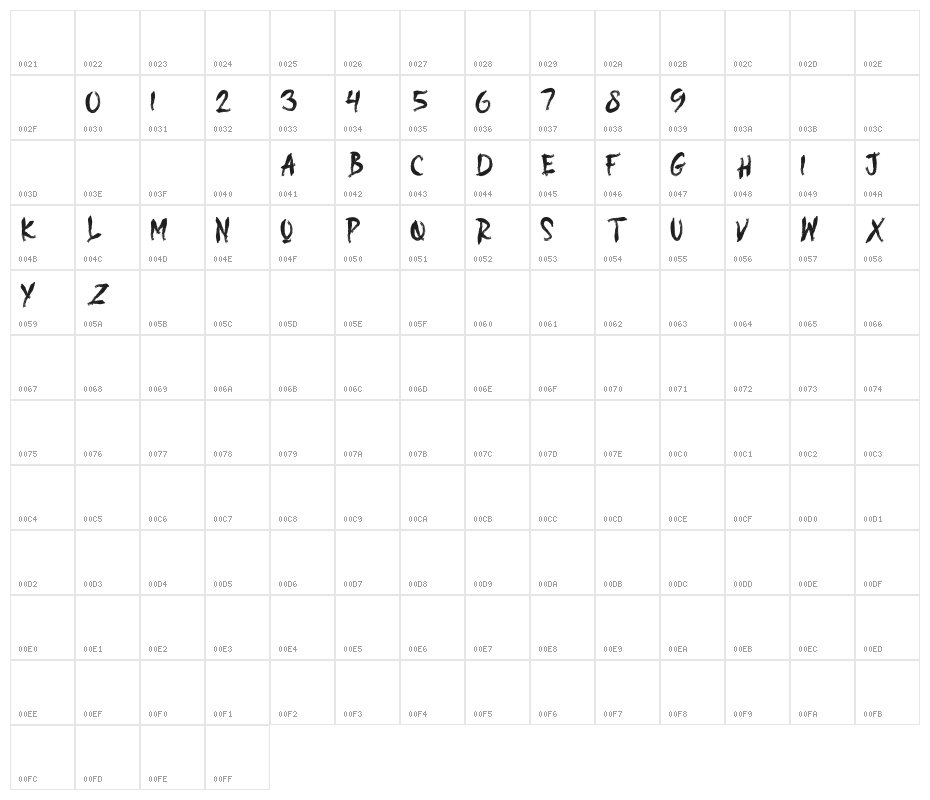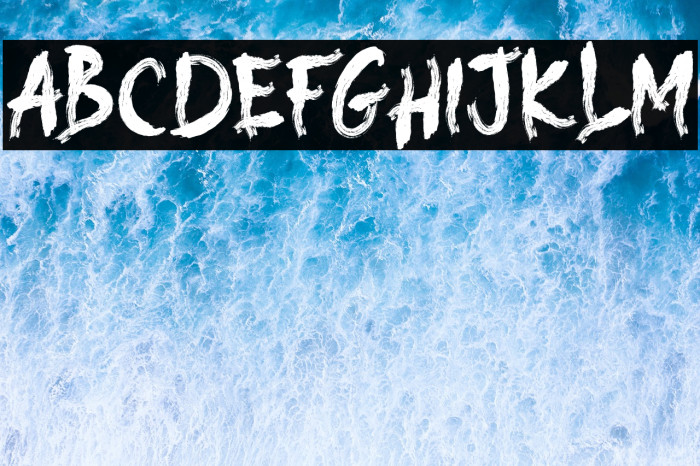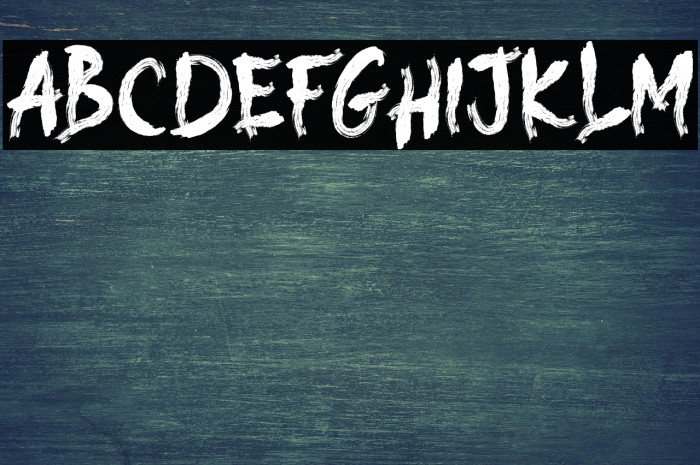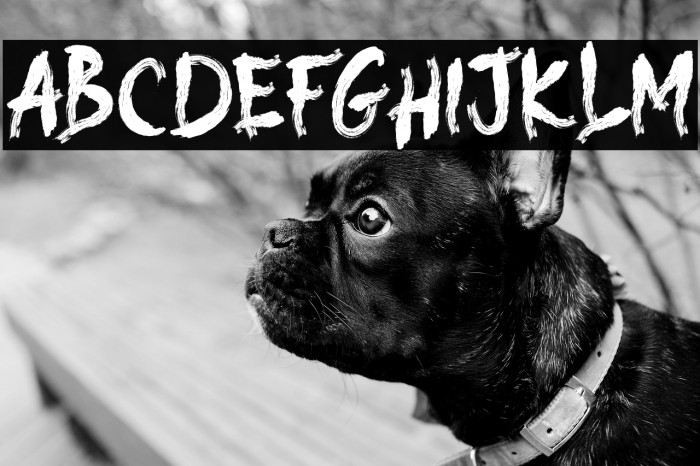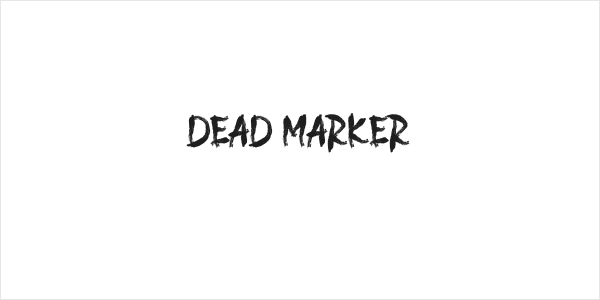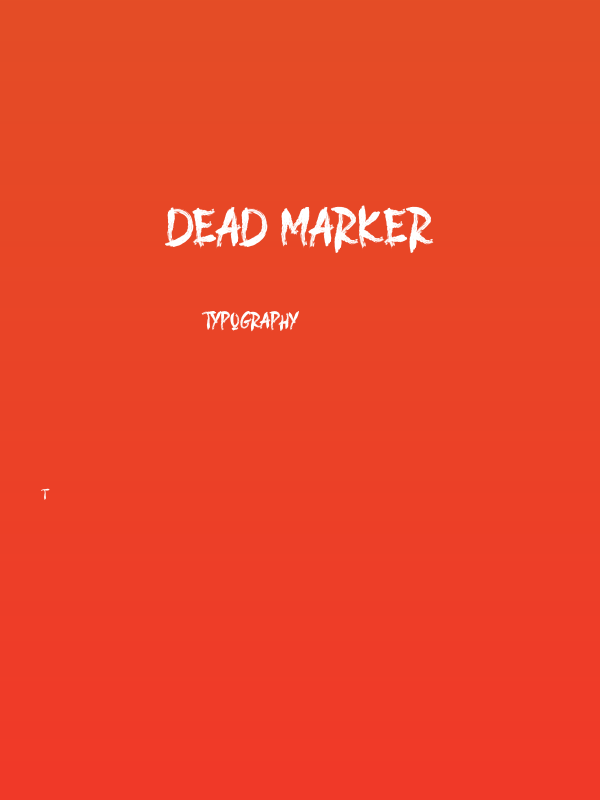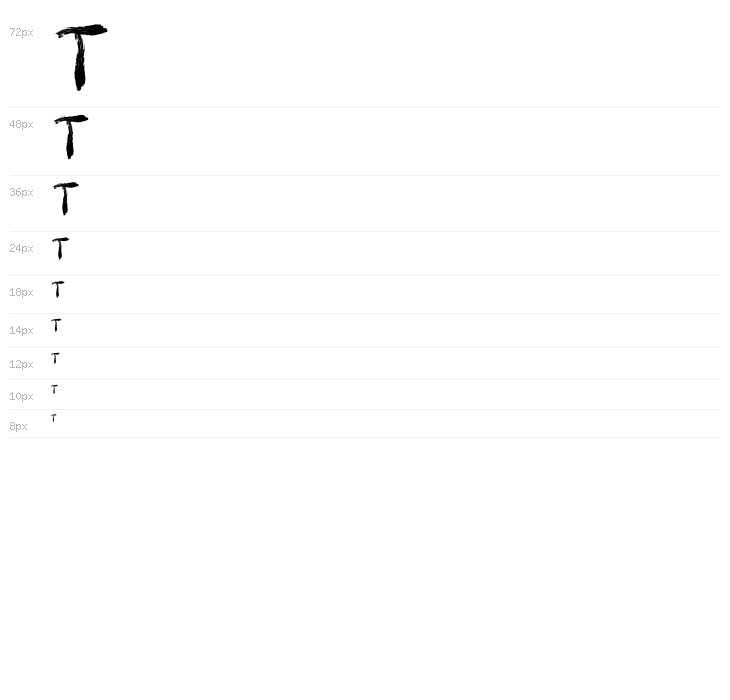
DEAD MARKER Font
DEAD MARKER Description
This font exudes a raw, energetic vibe with its brushstroke-like appearance. Each character is crafted with a dynamic, hand-painted style that gives it a sense of movement and intensity. The strokes are uneven and rugged, adding to the font's bold and expressive nature. The uppercase letters are particularly striking, with their dramatic flair and strong presence. The numbers and special characters maintain this energetic style, ensuring consistency across all elements. This font is perfect for projects that require a touch of edginess and creativity, making it ideal for artistic and unconventional designs.
| Overall Style | Modern, Artistic |
| Proposed Projects | Ideal for album covers, posters, streetwear designs, and any project needing a bold, artistic touch. |